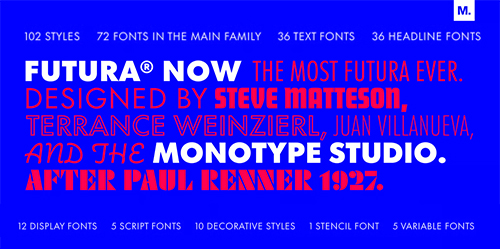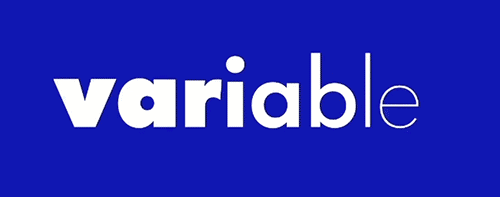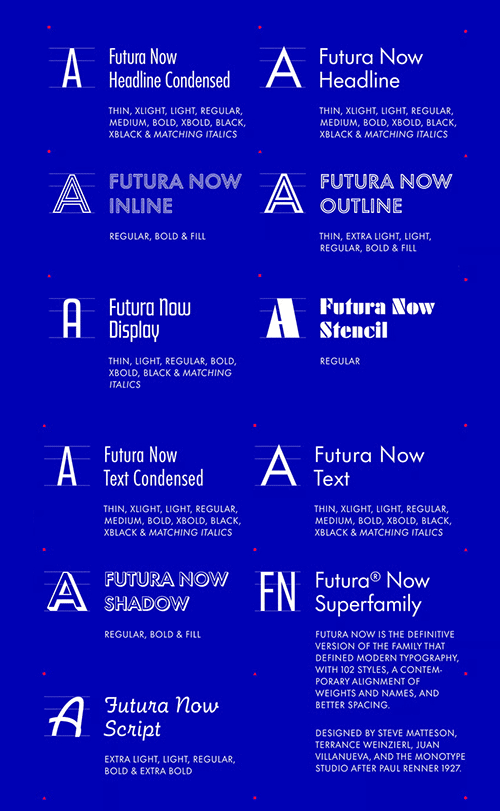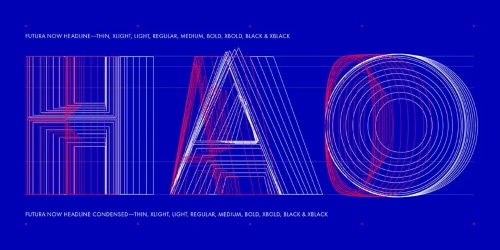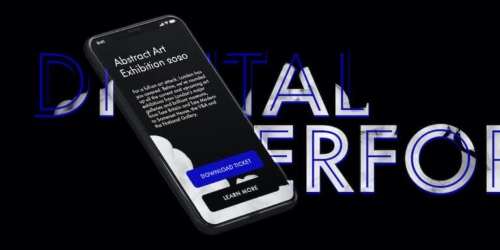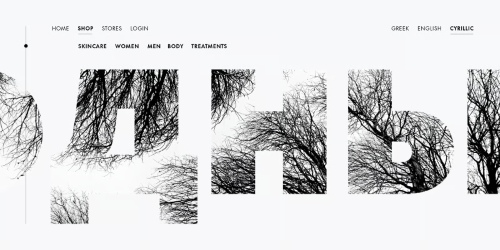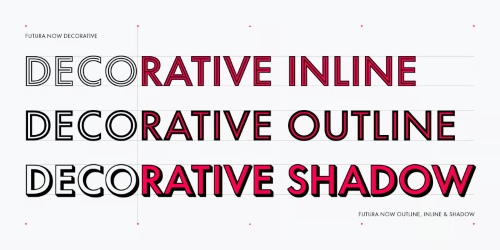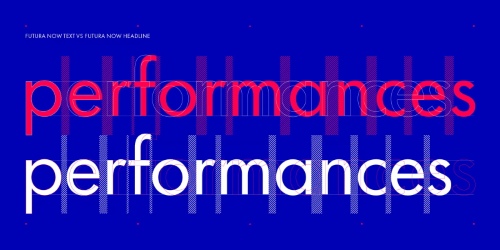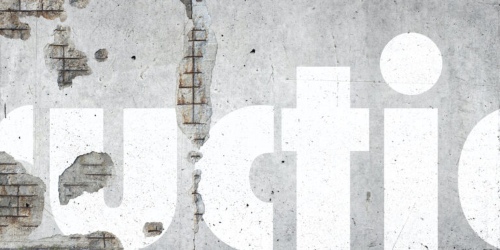
Futura Now Superfamily - 102 Styles + 5 Variables
Futura Now Superfamily
102 Styles + 5 Variable Fonts Family
• The definitive geometric sans, designed by the Monotype Studio. Futura® Now, the definitive version of the family that defined modern typography, contains 102 styles. Its contemporary alignment of names and weights offers an improved user experience. And it’s also available as a Variable font—delivering limitless styles in a tidy digital footprint.
• For nearly 90 years, Paul Renner’s Futura has been as popular as it is versatile—from children’s books to fashion magazines to the plaque on the Moon. Futura is a typographic icon.
• Futura Now offers designers a chance to see Futura with fresh eyes. It’s more truly Futura-like than any digital version you’ve ever worked with. “It brings some much-needed humanity back to the world of geometric sans serifs,” says Steve Matteson, Monotype’s Creative Type Director who led the design team.
• “Despite its reputation as the ultimate modern typeface, Futura Now is surprisingly warm,” he explains. “It’s just as at home set next to a leafy tree as it is next to a stainless-steel table, because it skillfully navigates the border between super-clean geometry and humanist warmth.”